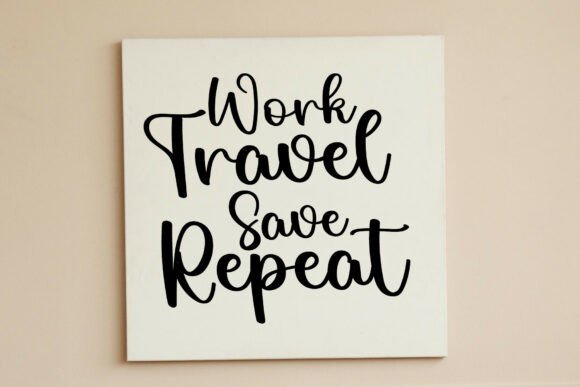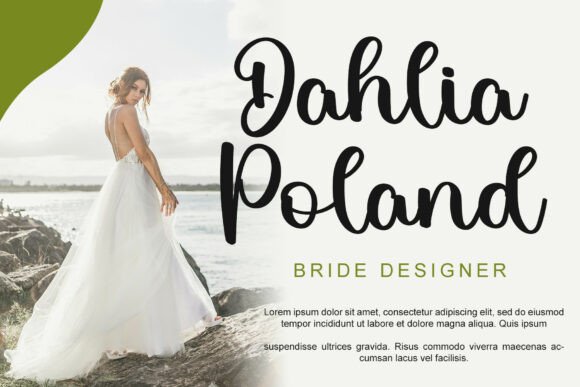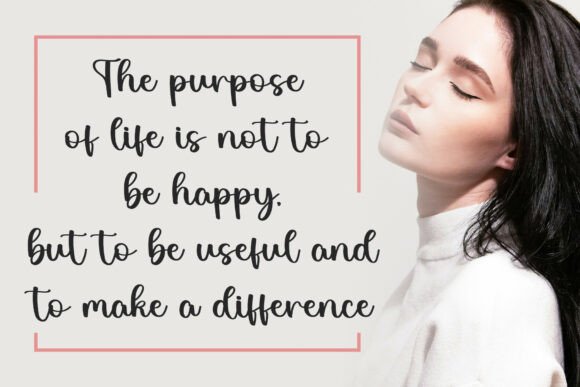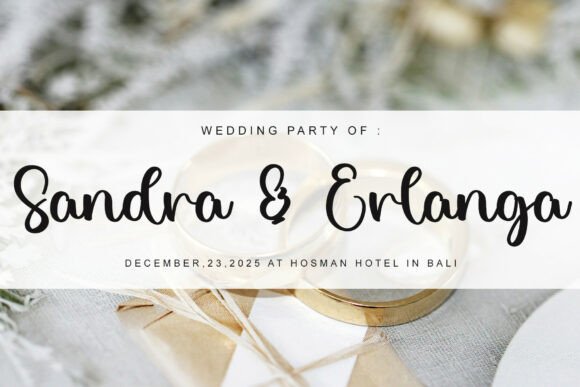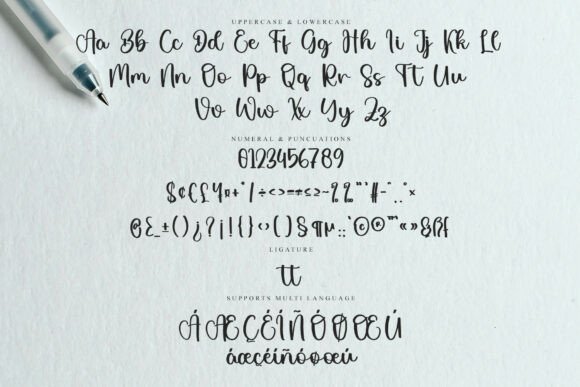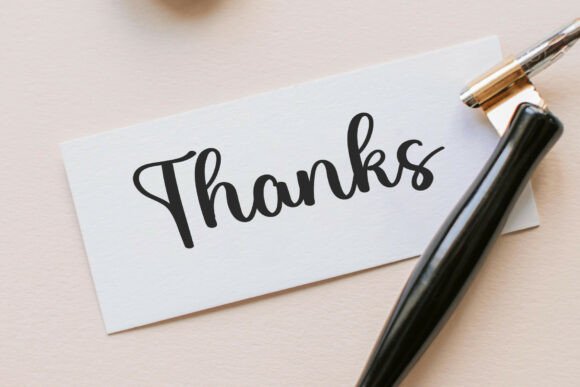
Introducing the Evident Font: Warmth and Clarity in Every Letter
Are you looking for a font that can add a personal touch to your designs without sacrificing legibility? Look no further than the Evident Script Handwriting Font. This delightful script handwriting font strikes the perfect balance between the personalized feel of cursive and excellent readability, making it an ideal choice for a wide range of creative projects.
The Characteristics of Evident Font
The Evident font boasts bold, thick strokes and smooth, bouncy connections that give it a friendly, enthusiastic, and approachable character. Its consistent weight ensures that the text stands out clearly, making it evident and impactful even in smaller applications. This unique combination of features makes the Evident font perfect for designs that require a touch of warmth and personality.
Perfect for Casual Branding and Creative Projects
The Evident typeface is ideal for casual branding, engaging social media graphics, craft projects, personalized notes, or lively product packaging. Its genuine, handcrafted appeal adds a touch of sincerity and cheerfulness to any design, making it perfect for designers and crafters who want to create unique and eye-catching content. Whether you’re creating a logo, a social media post, or a craft project, the Evident font is sure to make your design stand out.
Professionalism without Sacrificing Personality
One of the best things about the Evident font is that it offers a professional look without sacrificing personality. Its bold strokes and smooth connections give it a robust charm that is sure to capture the attention of your audience. At the same time, its consistent weight and excellent legibility ensure that your message is communicated clearly and effectively.
PUA-Encoded for Easy Access
The Evident font is PUA-encoded, which means that it has effortless access to all glyphs, swashes, and alternate characters. This makes it easy to customize your designs and add a touch of personality to your text. With the Evident font, you can create unique and eye-catching designs that reflect your brand’s personality and style.
Why Choose the Evident Font?
So why choose the Evident font for your next design project? Here are just a few reasons:
- Unique and eye-catching: The Evident font has a unique and eye-catching design that is sure to capture the attention of your audience.
- Excellent legibility: The Evident font has excellent legibility, making it perfect for designs that require a clear and concise message.
- Personalized feel: The Evident font has a personalized feel that adds a touch of warmth and sincerity to any design.
- Professional look: The Evident font has a professional look that is perfect for designs that require a touch of sophistication and elegance.
Tips for Using the Evident Font
Here are a few tips for using the Evident font in your designs:
- Use it for headings: The Evident font is perfect for headings and titles, where its bold strokes and smooth connections can really make your text stand out.
- Pair it with other fonts: The Evident font pairs well with other fonts, making it easy to create unique and eye-catching designs.
- Experiment with colors: The Evident font looks great in a variety of colors, so don’t be afraid to experiment and find the perfect color for your design.
The Evident Script Handwriting Font is a unique and versatile font that is perfect for designers and crafters who want to add a touch of warmth and personality to their designs. Its bold strokes, smooth connections, and consistent weight make it easy to read and understand, while its genuine, handcrafted appeal adds a touch of sincerity and cheerfulness to any design. With its PUA-encoded feature, you can easily access all glyphs, swashes, and alternate characters, making it easy to customize your designs. Whether you’re creating a logo, a social media post, or a craft project, the Evident font is sure to make your design stand out.